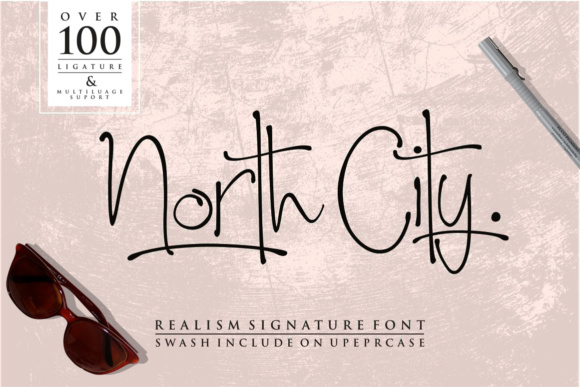
North City Font
Indulge in the charm of North City, a signature-style font born from the desire for authentic handwriting in logo designs. Its meticulously crafted ligatures capture the essence of natural pen strokes, ensuring your logos radiate with a captivating human touch.
Embrace North City's versatility, seamlessly adaptable to any branding concept. Its graceful curves and fluid flow lend a touch of sophistication and elegance to your designs, leaving an unforgettable impression on your audience.
North City empowers you to effortlessly create logos that exude warmth, personality, and authenticity. Its intuitive design makes it a joy to use, allowing you to focus on crafting your vision without technical distractions.
If you seek a font that ignites creativity, evokes genuine connections, and sets your brand apart, North City is your perfect match. Experience the transformative power of handwriting brought to life in digital form. Unveil your brand's true potential with North City, where every stroke tells a captivating story.